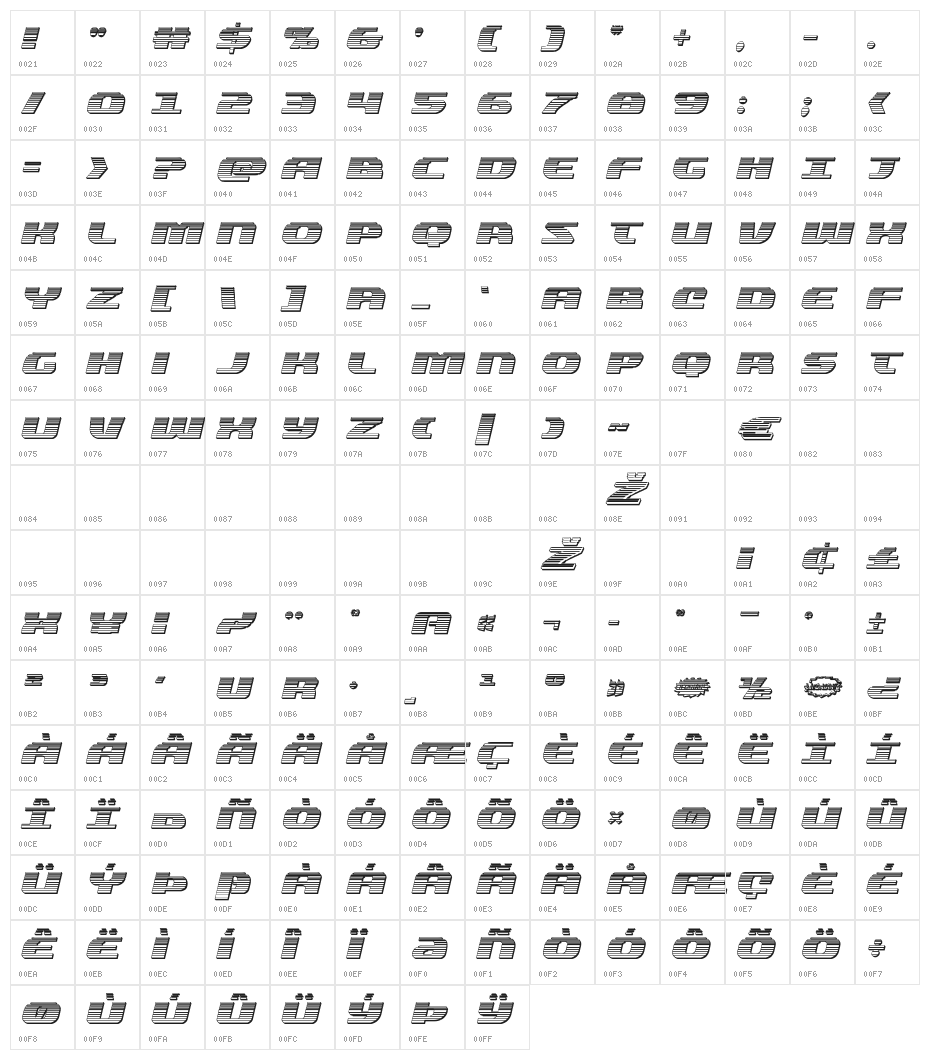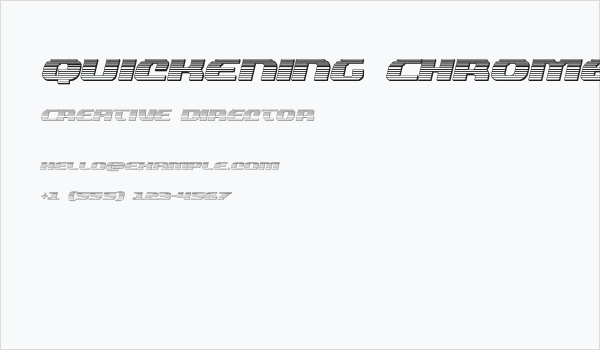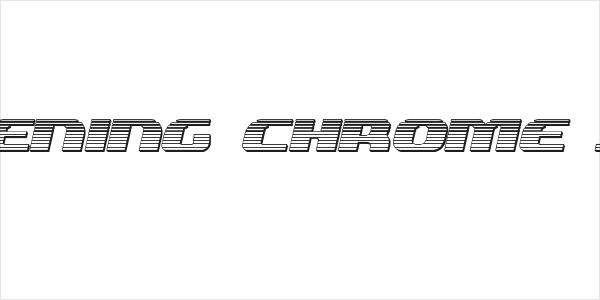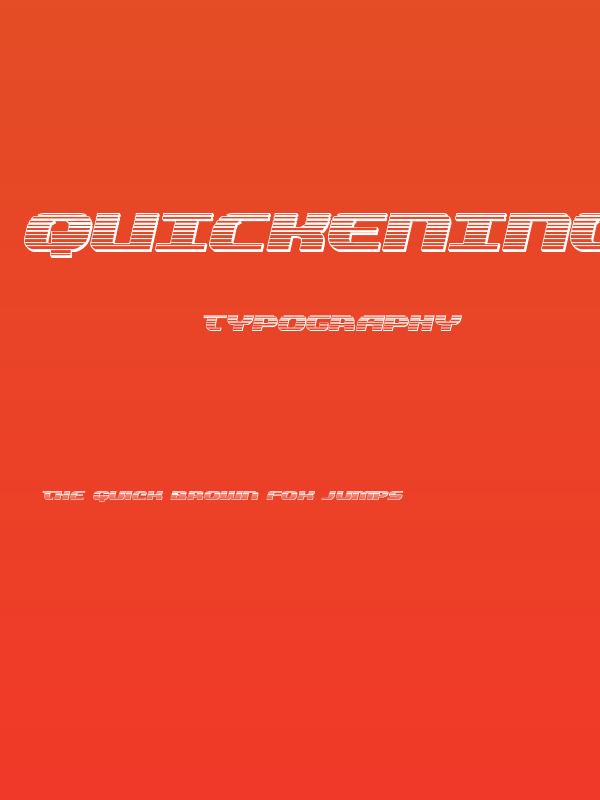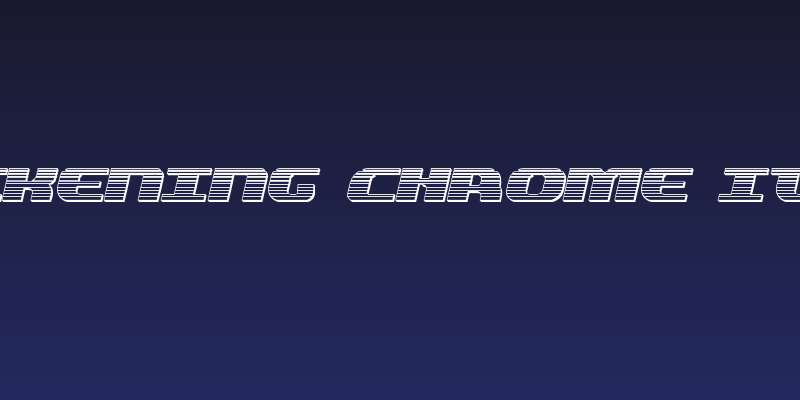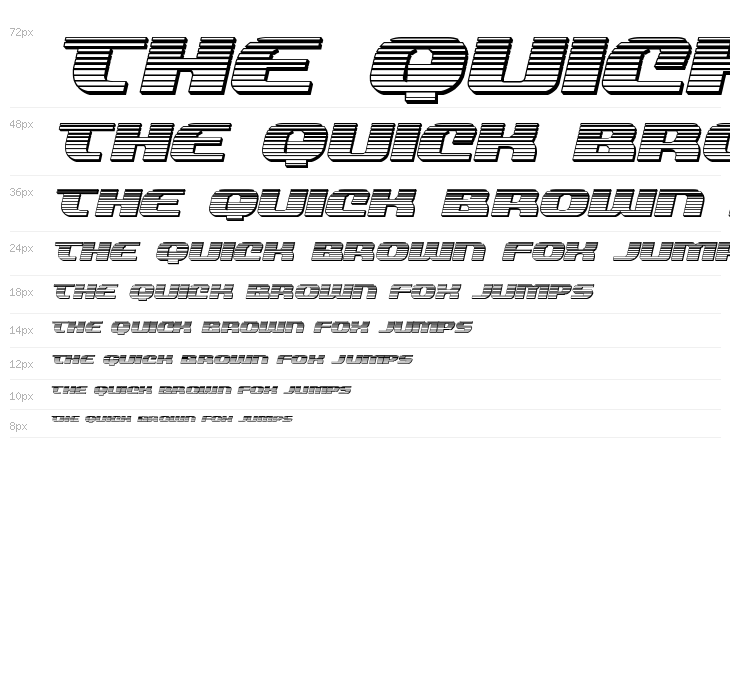
Quickening Chrome Italic Font
Quickening Chrome Italic Description
This font features a futuristic and dynamic design with a distinct chrome-like appearance. The characters are constructed with multiple horizontal lines, creating a sense of movement and speed. The italic style adds to the sleek and modern aesthetic, making it ideal for projects that require a bold and eye-catching look. The uppercase and lowercase letters maintain a consistent style, while the numerals and special characters complement the overall design. This font is perfect for use in technology-themed projects, automotive branding, or any creative endeavor that seeks to convey innovation and forward-thinking.
| Proposed Projects | Ideal for technology branding, automotive designs, futuristic posters, and innovative product packaging. |